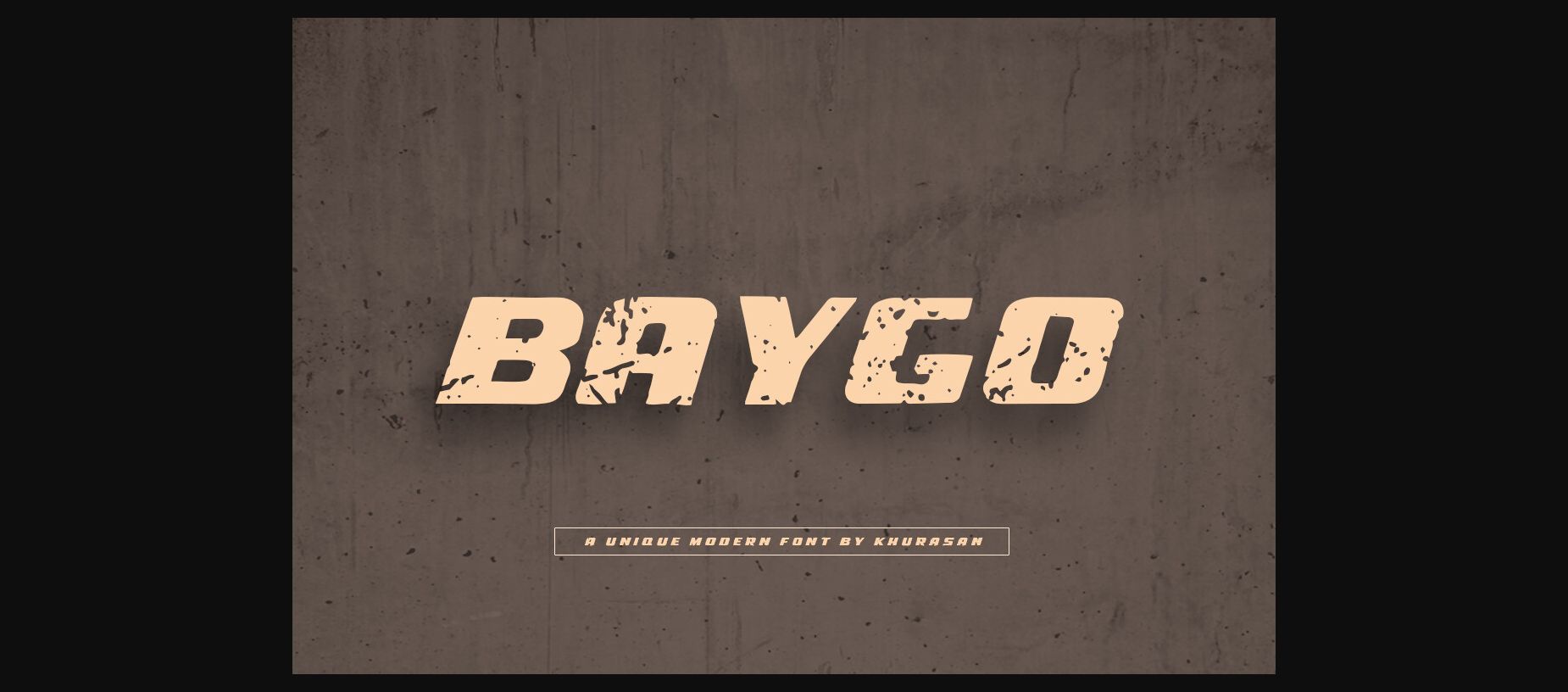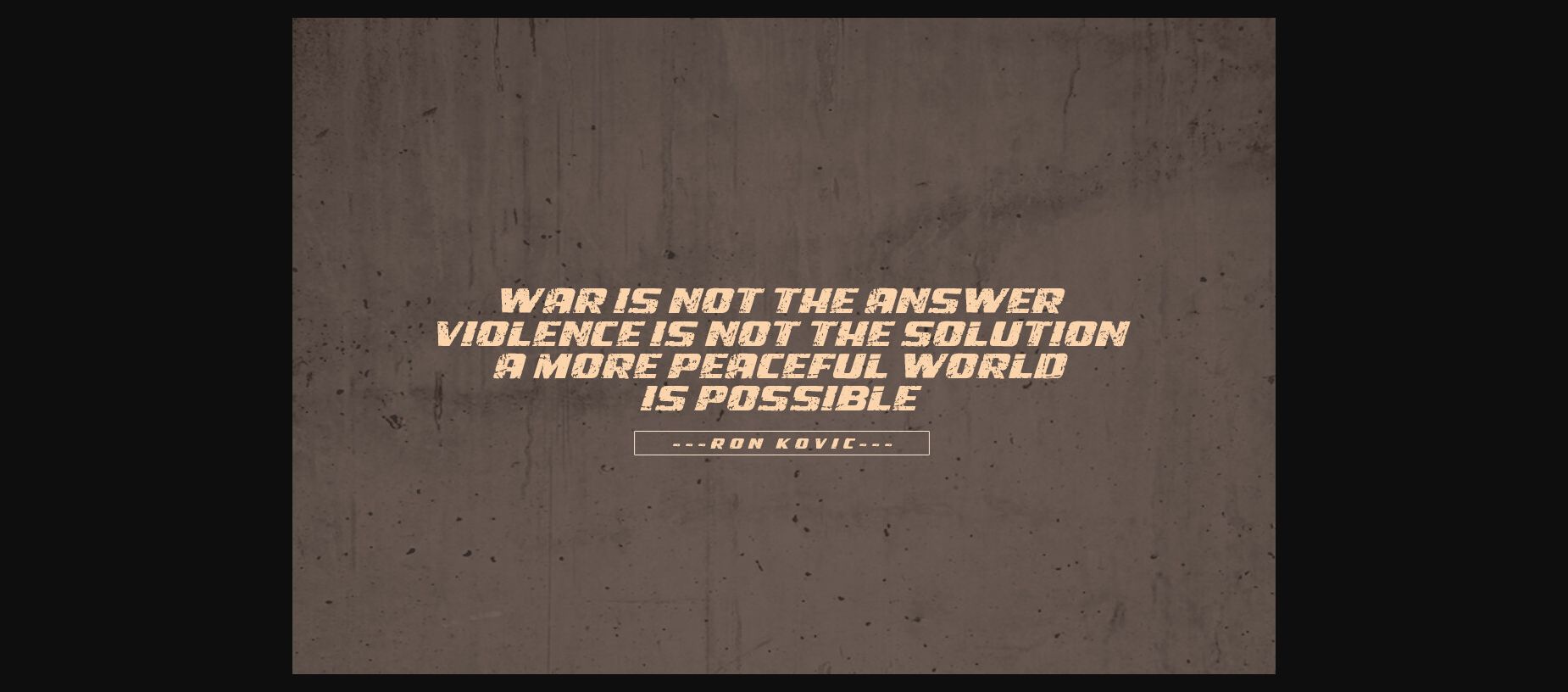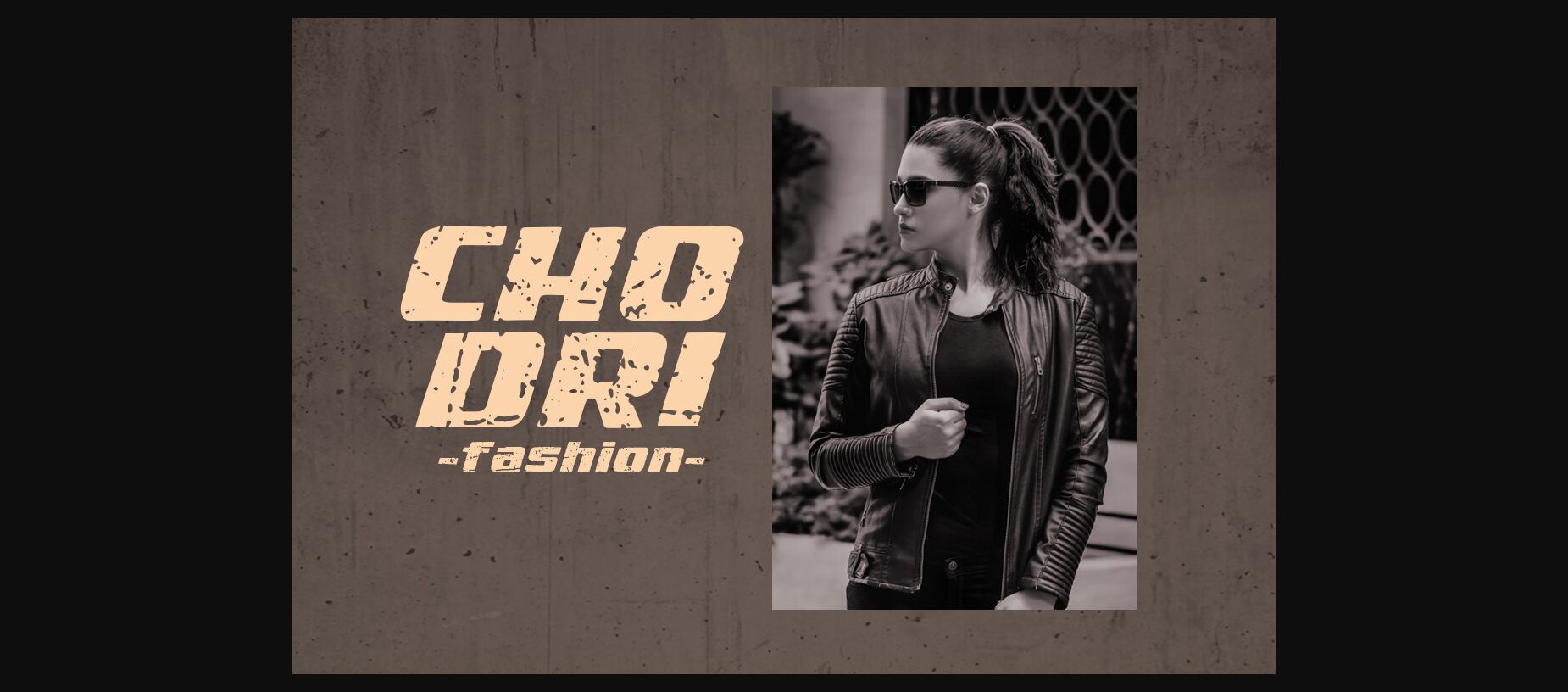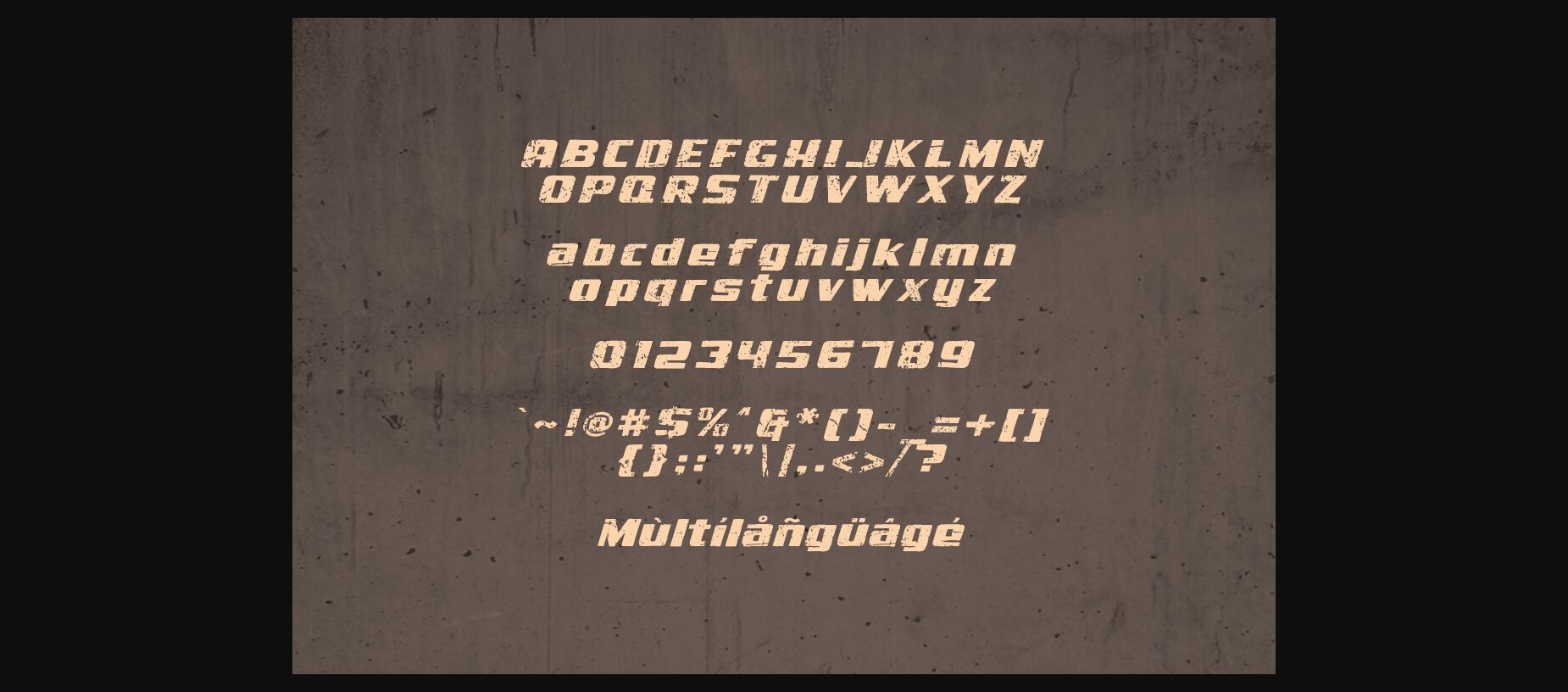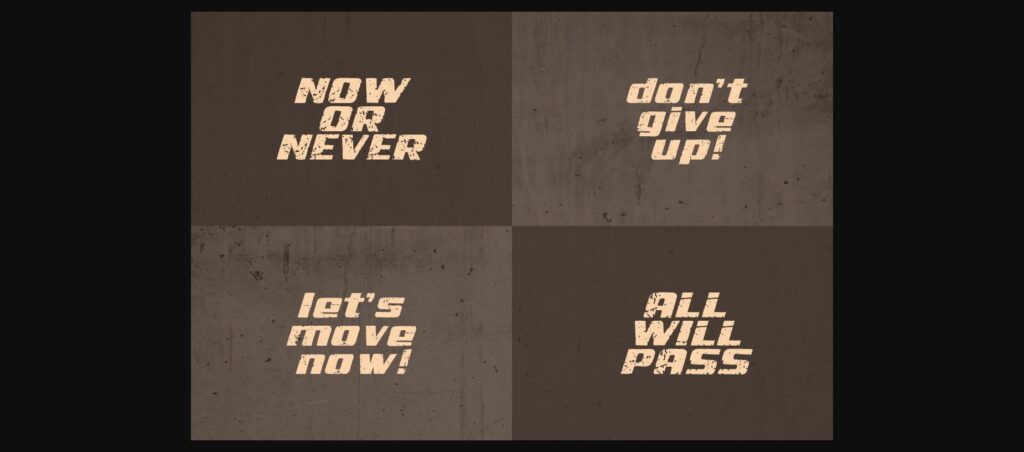
Baygo Font
About Baygo Font
Baygo is a modern bold sans serif font perfect for posters, logos, magazines, book covers, banners, and many more! Get this quirky handwritten font, and use it to create lovely designs! It can easily be matched to an incredibly large set of projects, so add it to your creative ideas and notice how it makes them stand out!